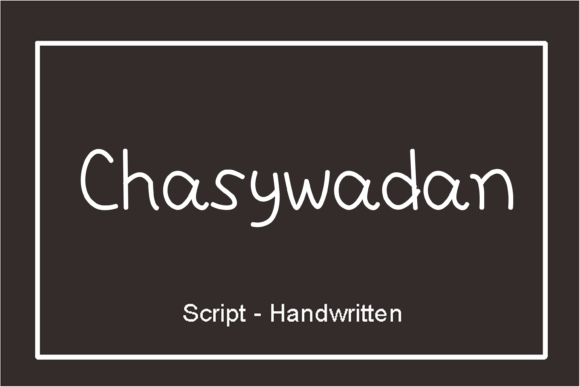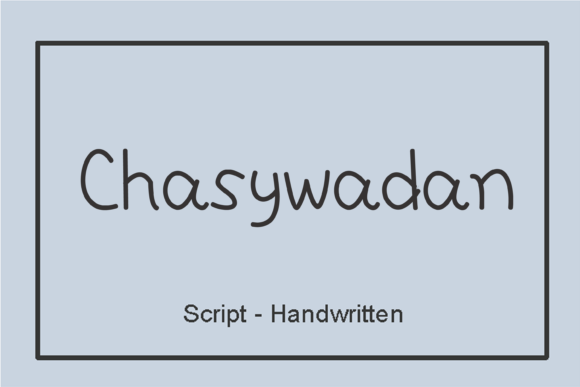
Chasywadan Font
About Chasywadan Font
Chasywadan is a casual handwritten font. Clean and a little bit quirky, this font is the perfect fit for all of your logos, branding, social media, and crafty DIY projects.